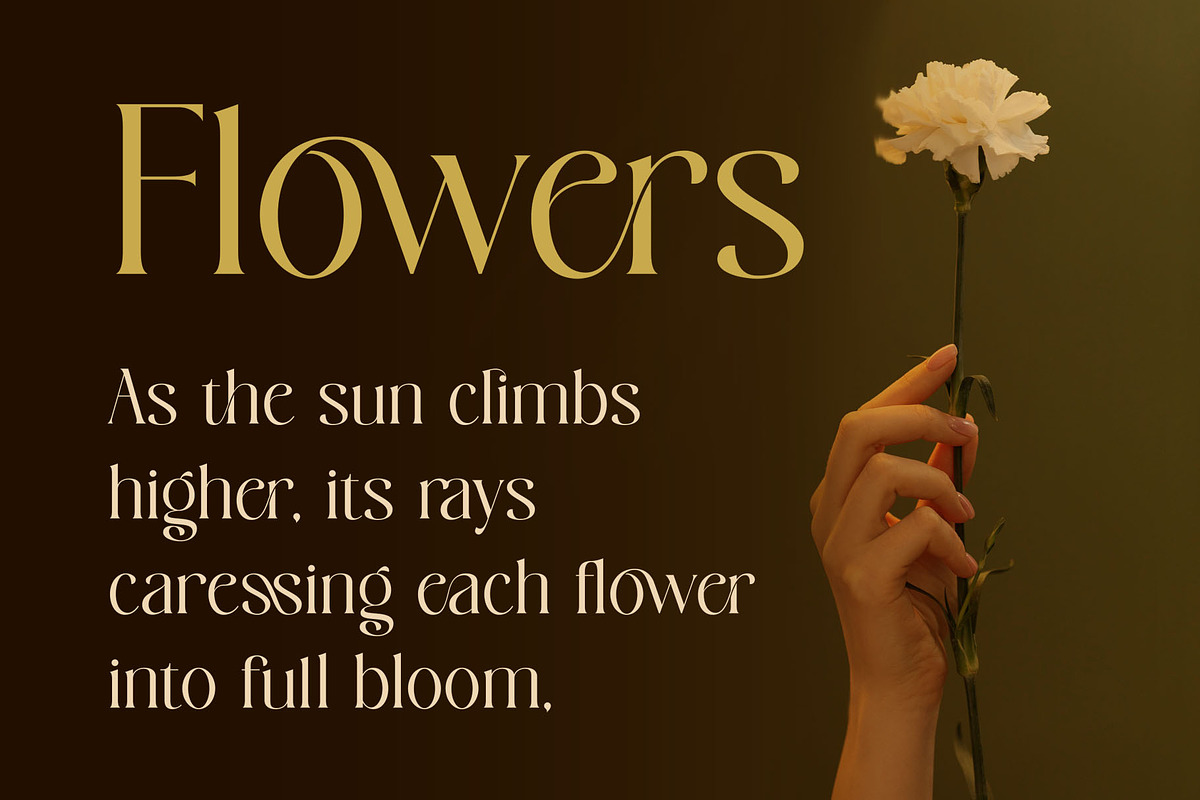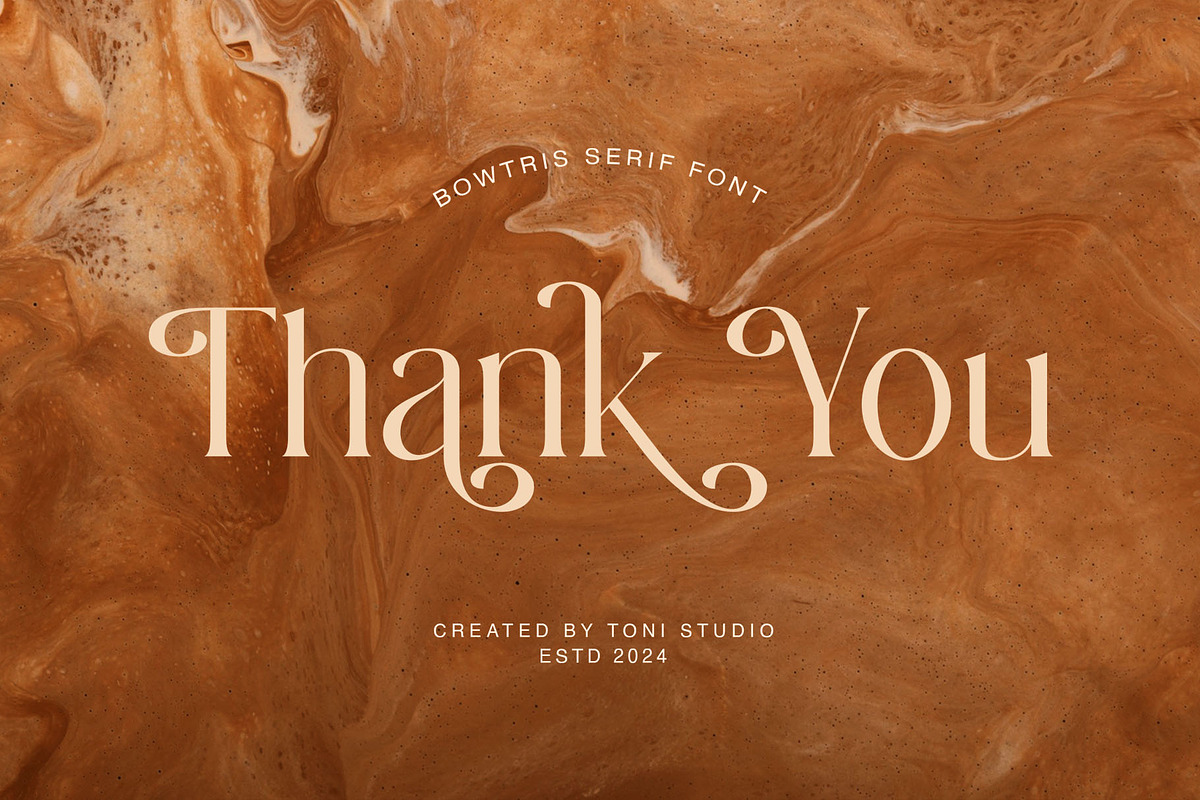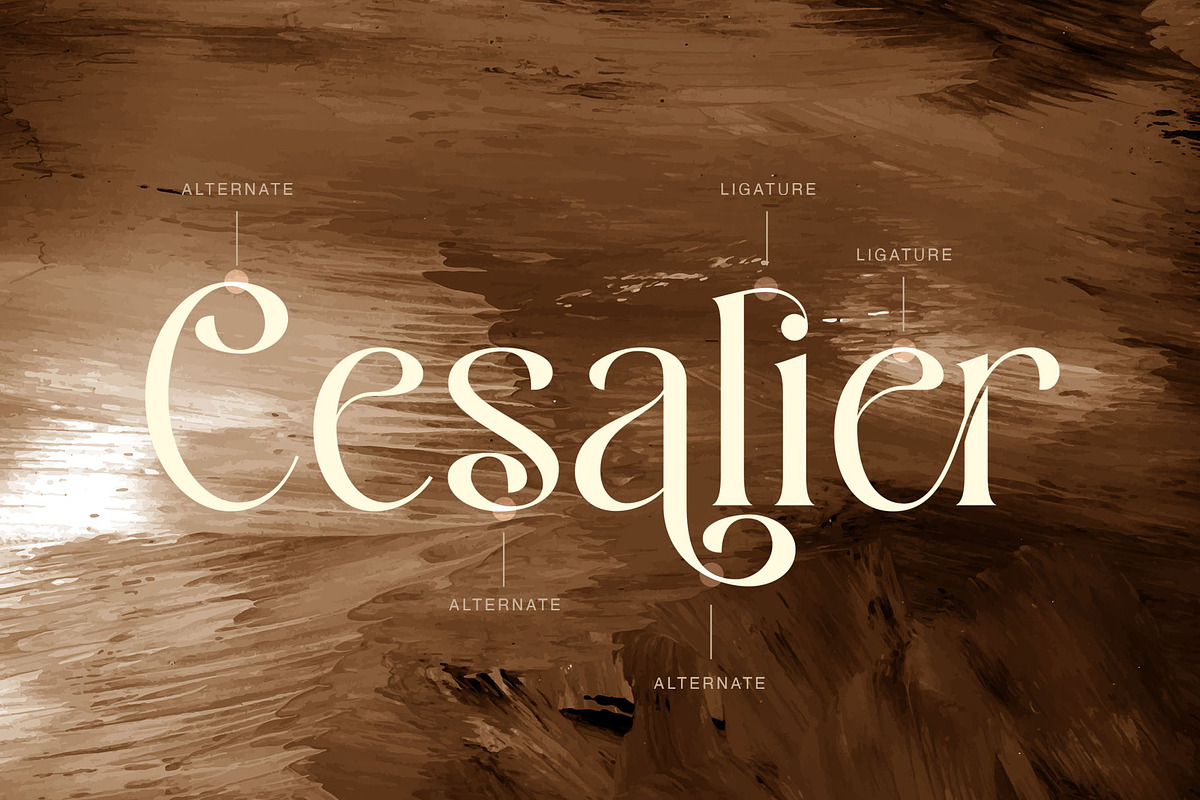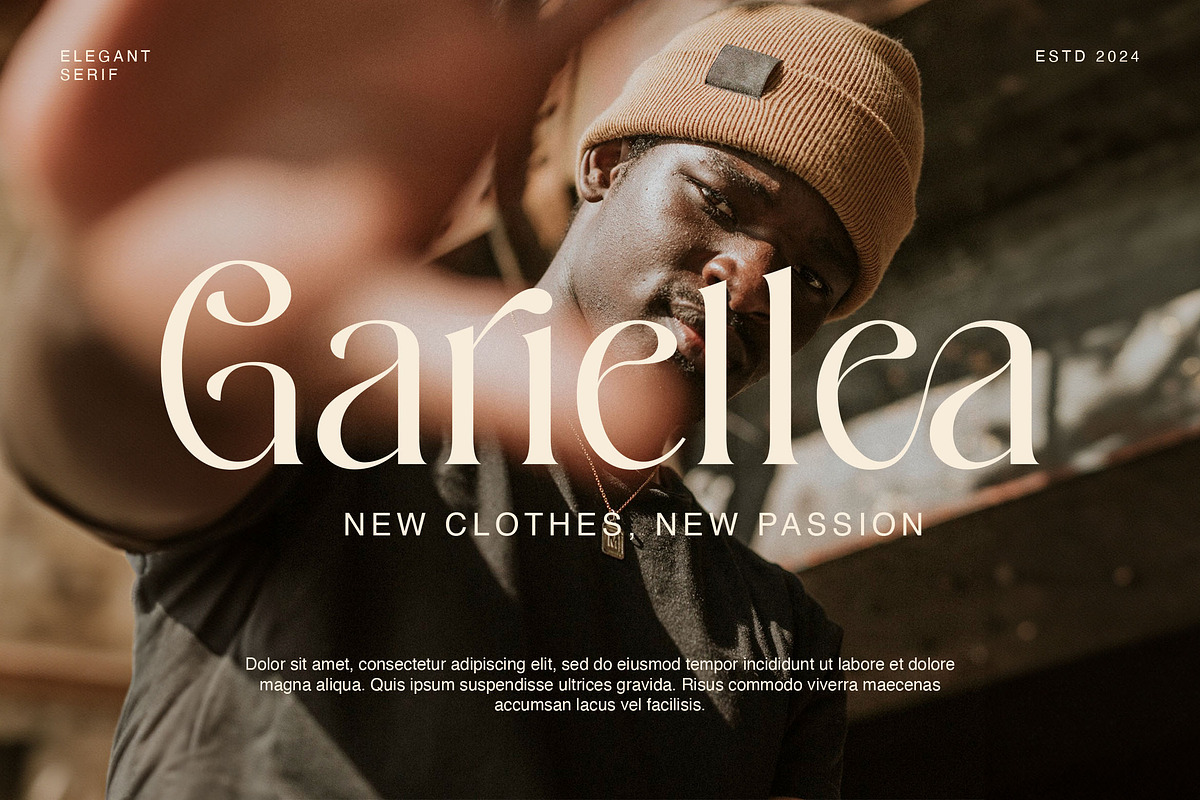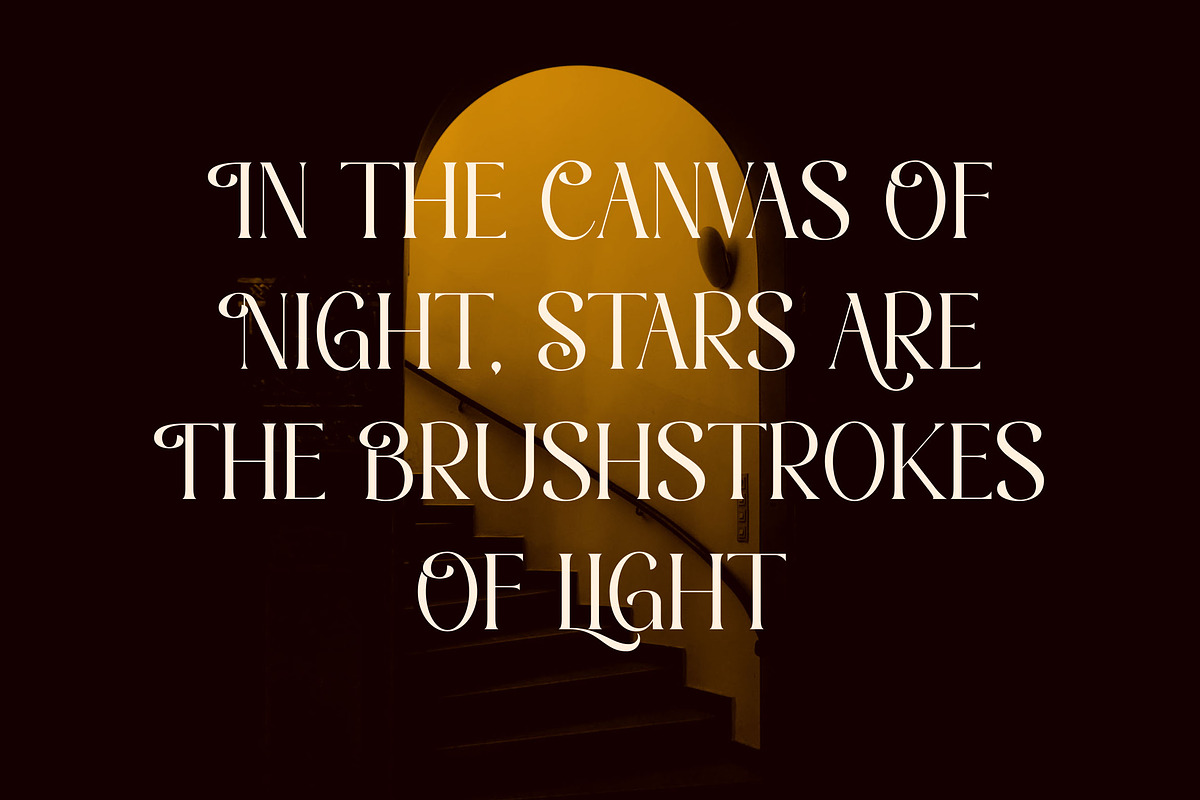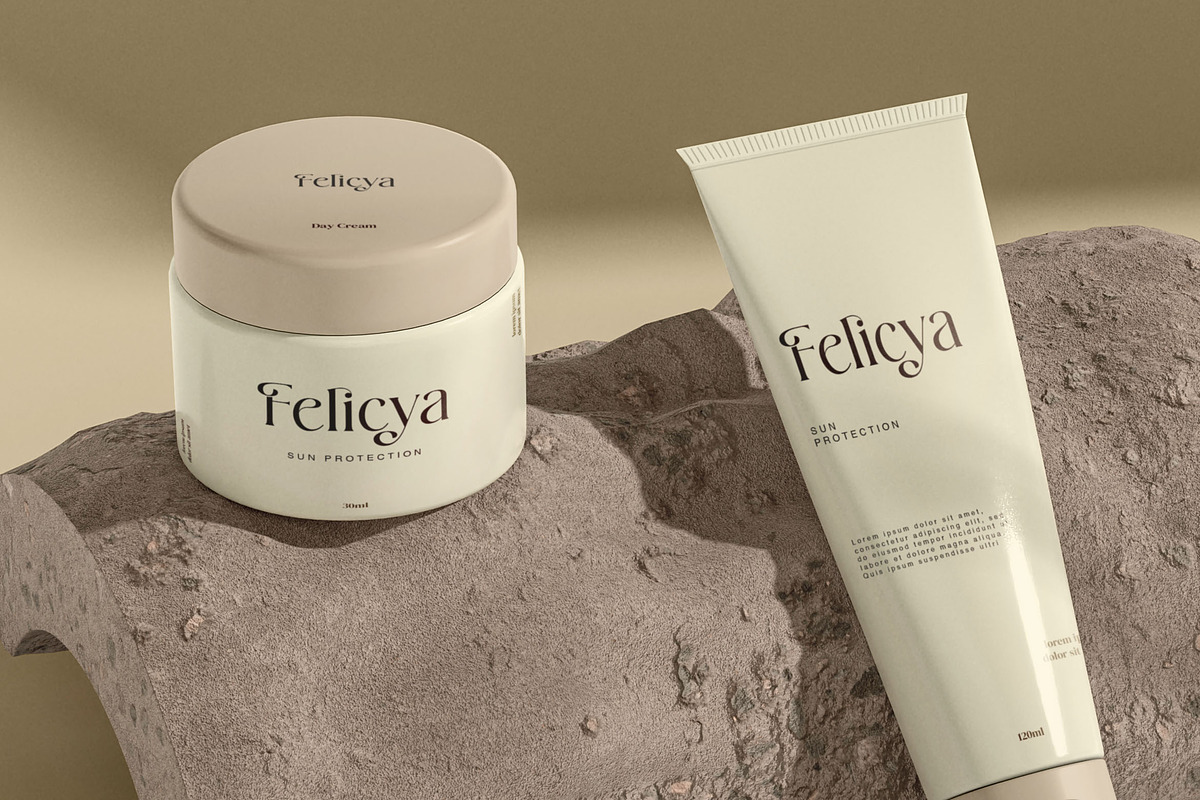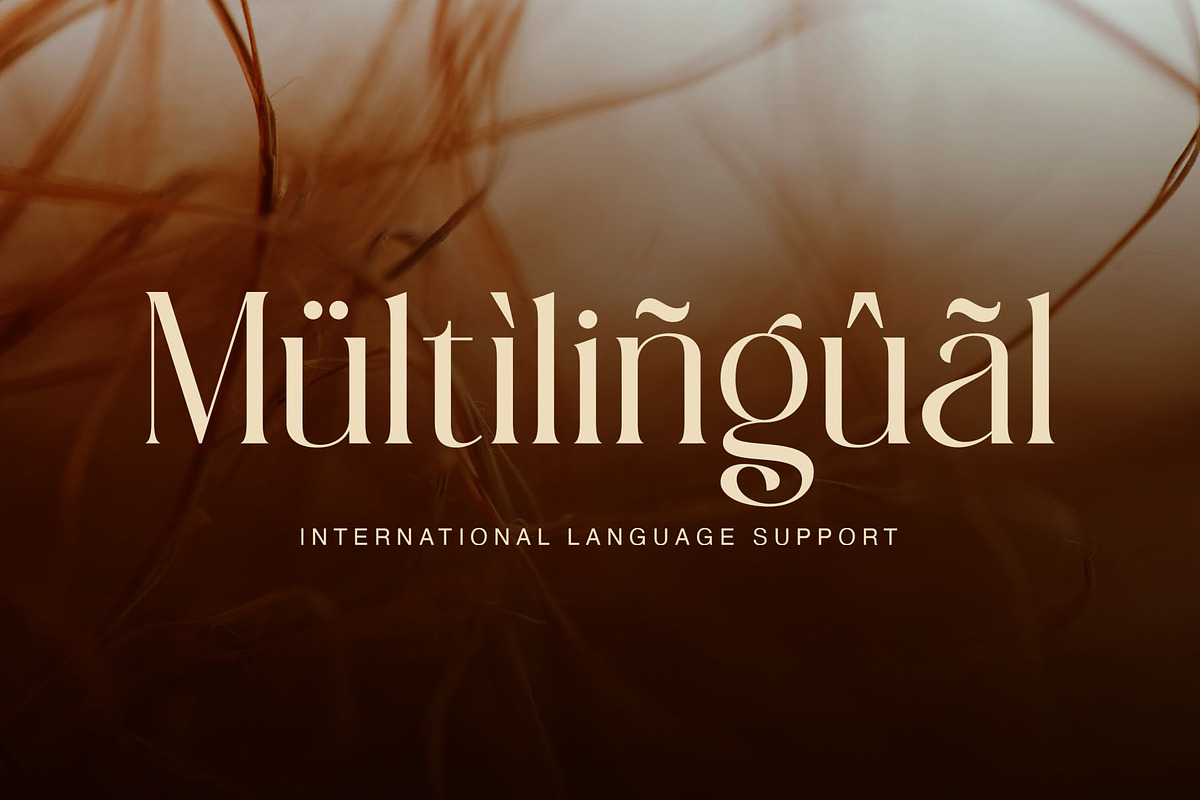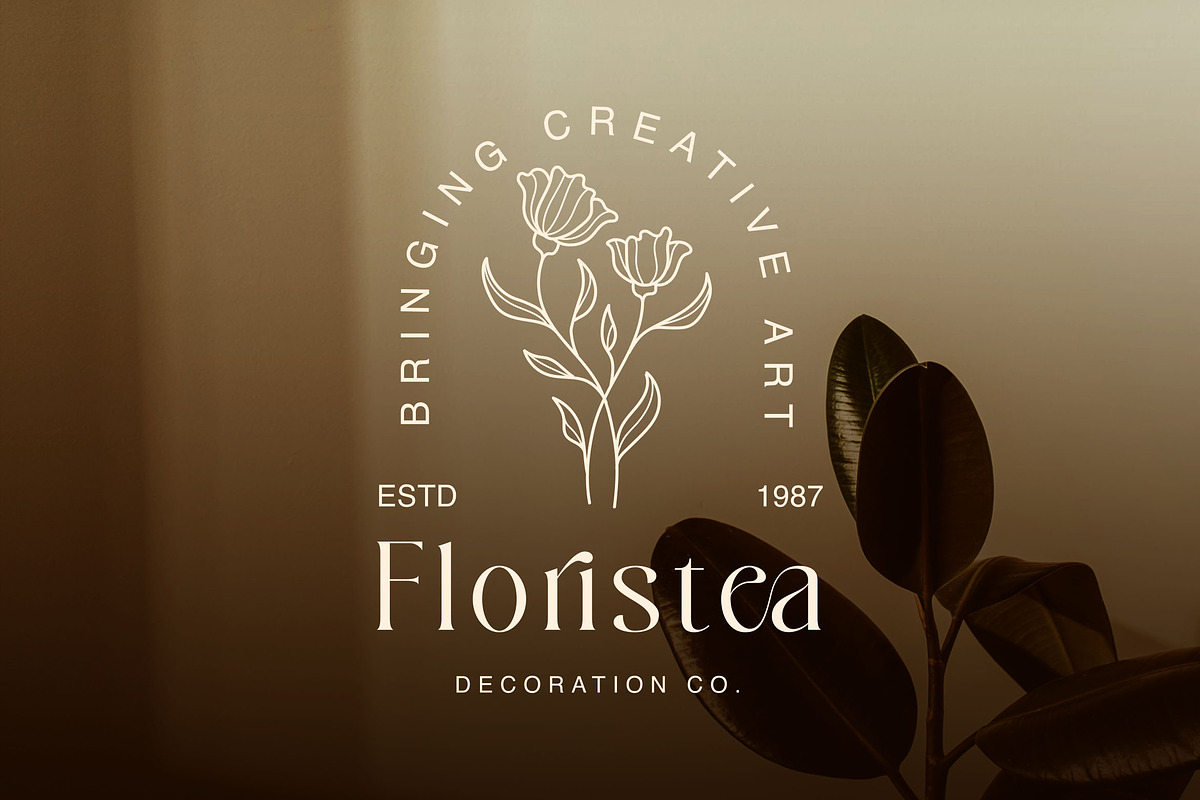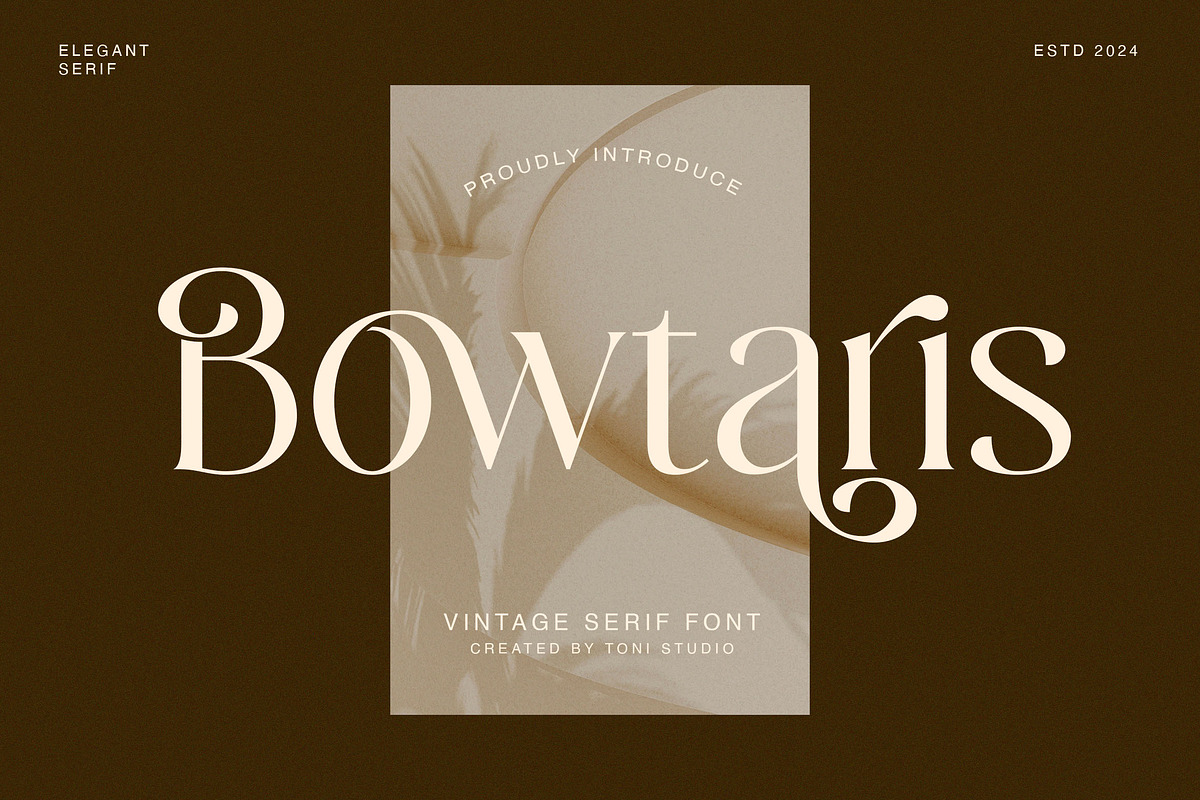
Bowtaris || ligature display serif
Presenting "Bowtaris". is an asthetic vintage serif font with a sparkle of Elegance. A classic design that brings timeless charm, reminiscent of traditional typefaces from the past. each letter in this font carries a sense of nostalgia and authenticity, evoking the charm of semi-vintage printing techniques. the perfect choice for branding, packaging and editorial designs looking to capture the essence of the past. Despite its vintage appeal, this font offers versatility in application, blending perfectly with digital and print projects with a classic yet contemporary aesthetic. in tune with nostalgia and sophistication. Embrace the charm of the past with "Bowtaris" and infuse your designs with vintage elegance.
- Multilingual and alternative